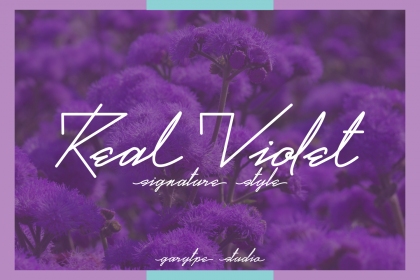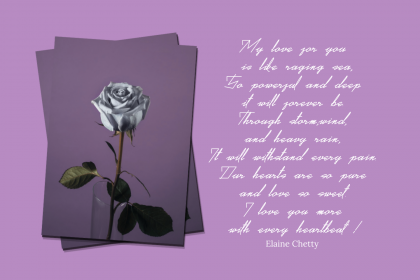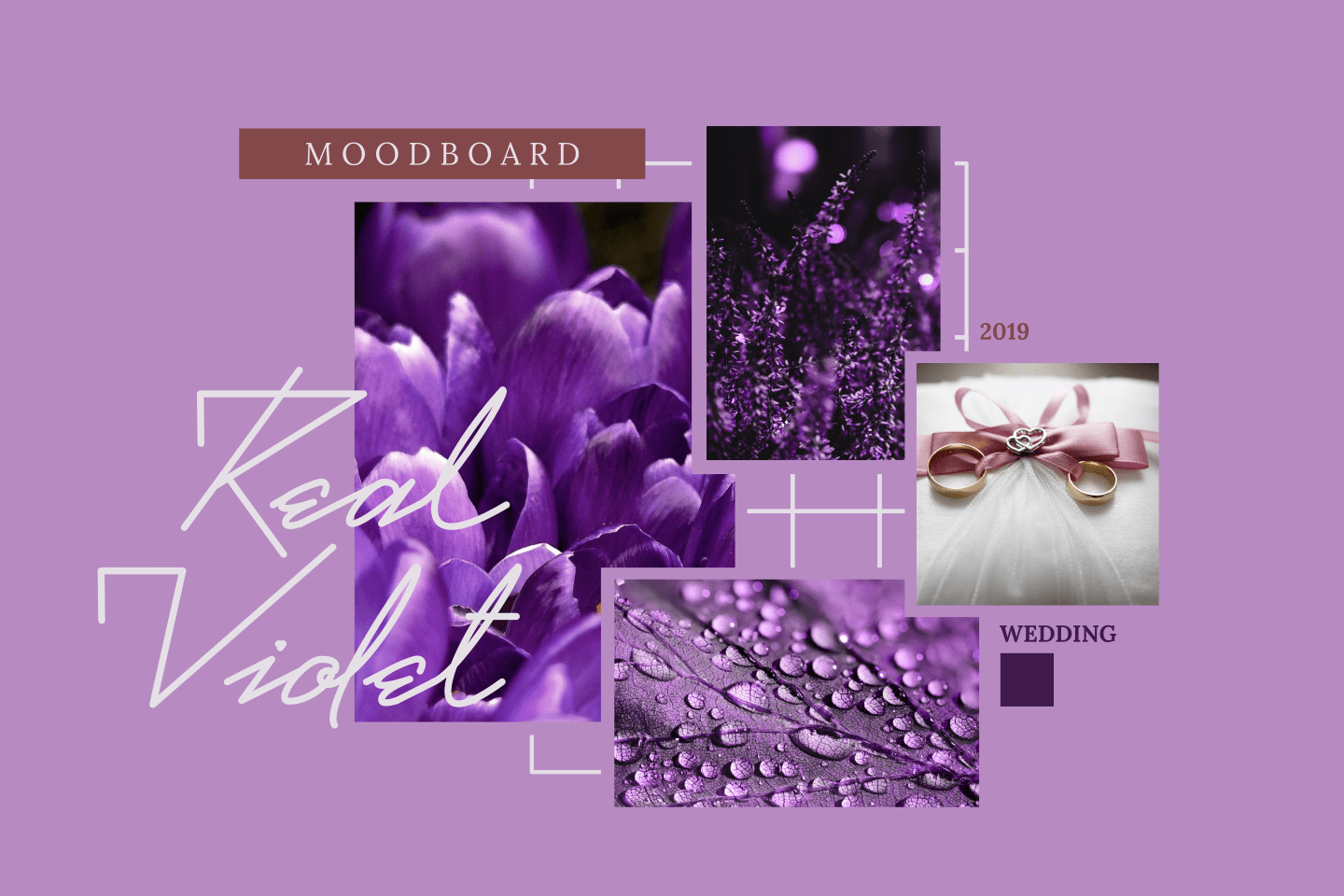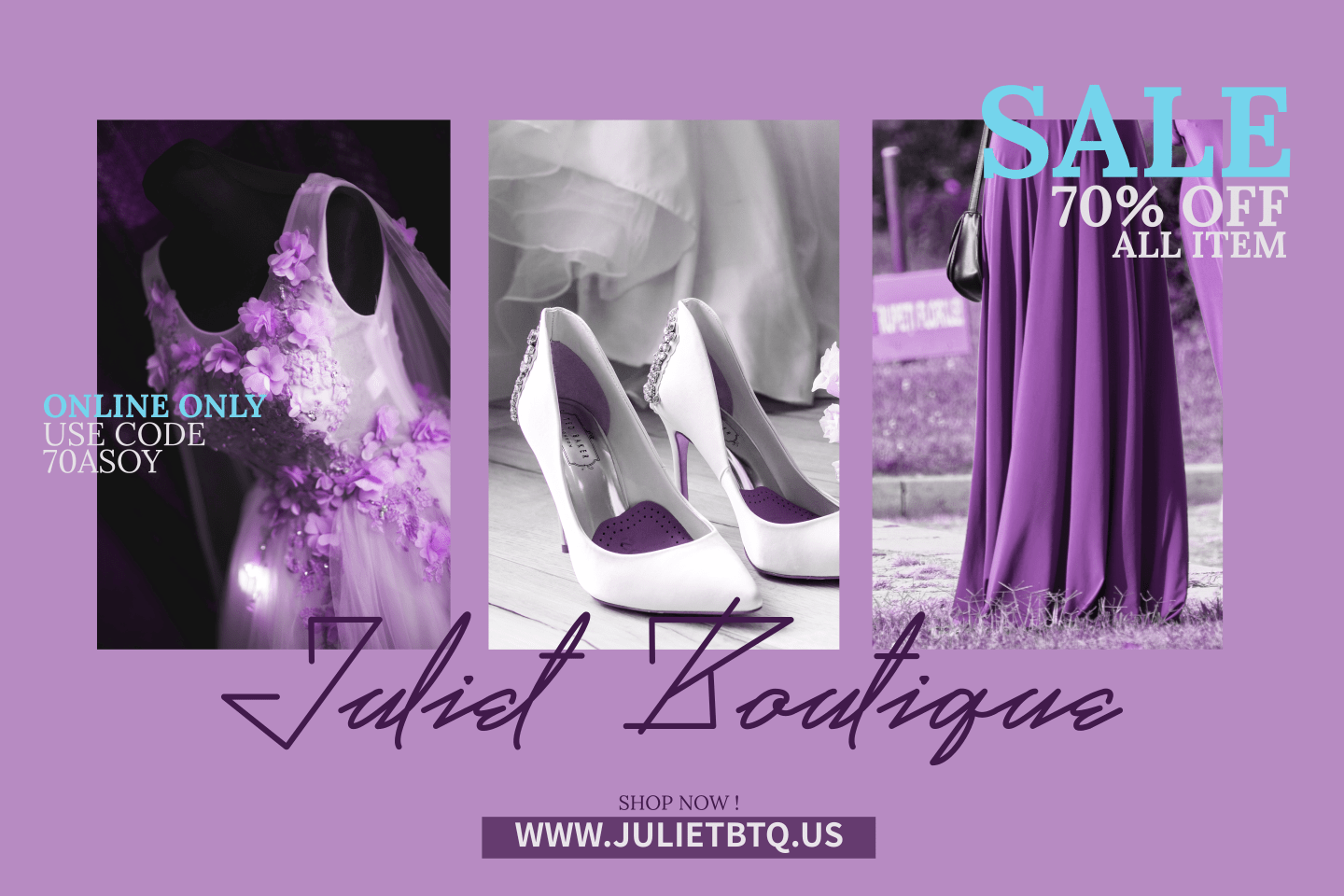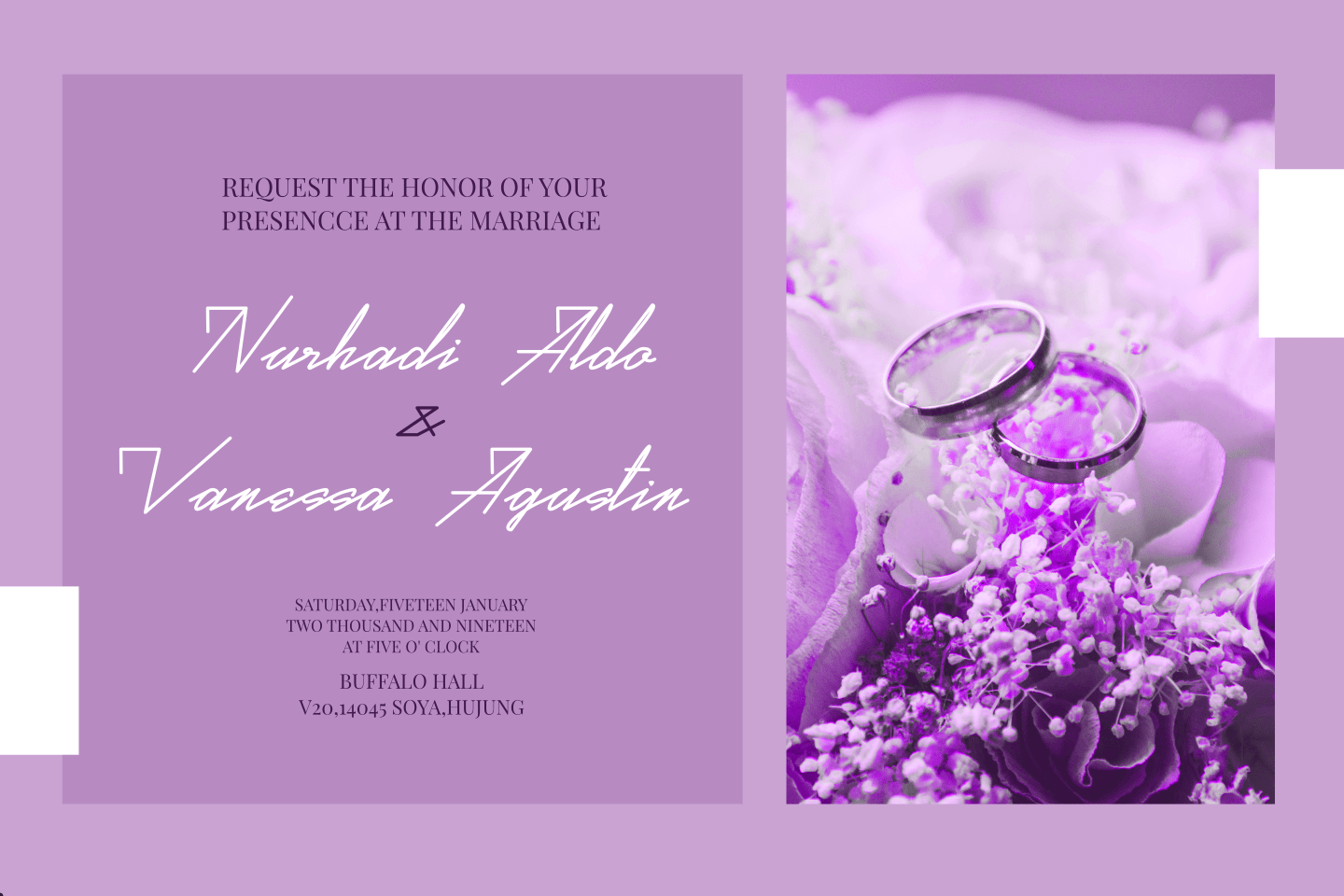
Real Violet Handwritten Font
Introducing real violet, signature style fonts from us.Inspired by an elegant, beautiful, perfect life.Real violet is suitable for your needs such as mooboard, wedding, private signature quotes, watermarks, logos, flyers,poster,letterhead,apparel,etc.